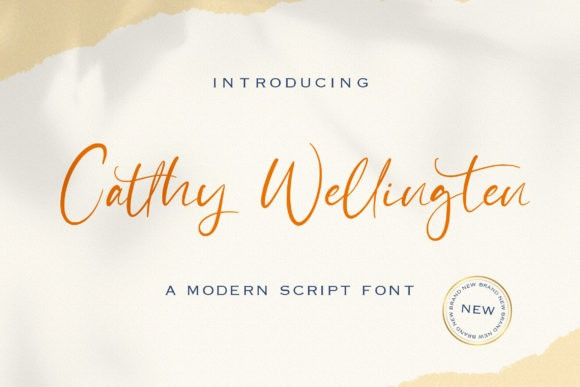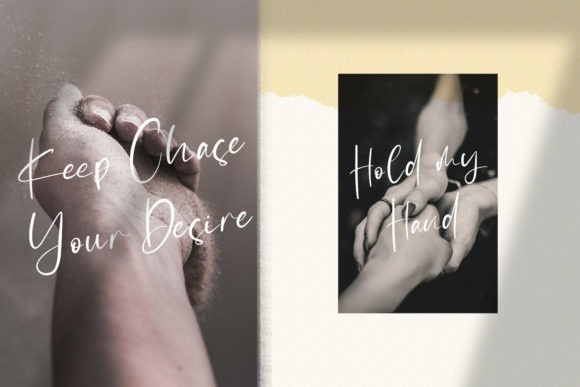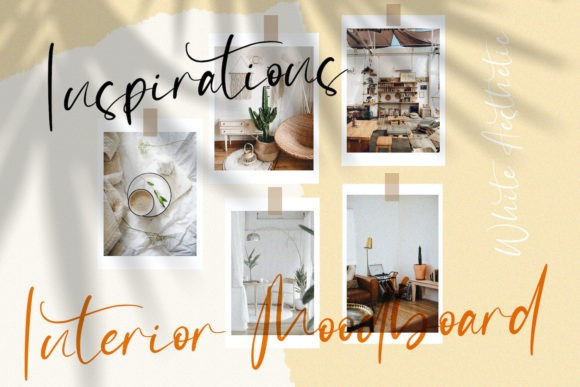
Catthy Wellingten Handwritten Font
Catthy Wellingten is an incredibly distinct, delicate and timeless handwritten font. It looks stunning on wedding invitations, thank you cards, quotes, greeting cards, logos, business cards and every other design which needs a handwritten touch.